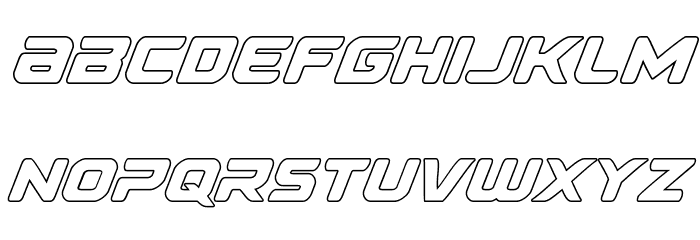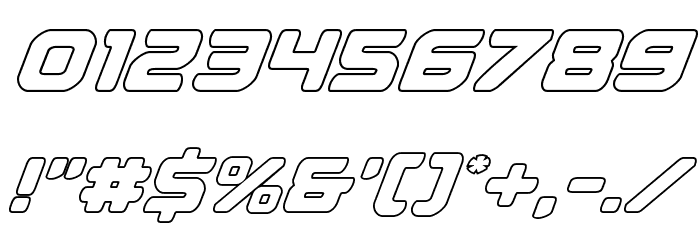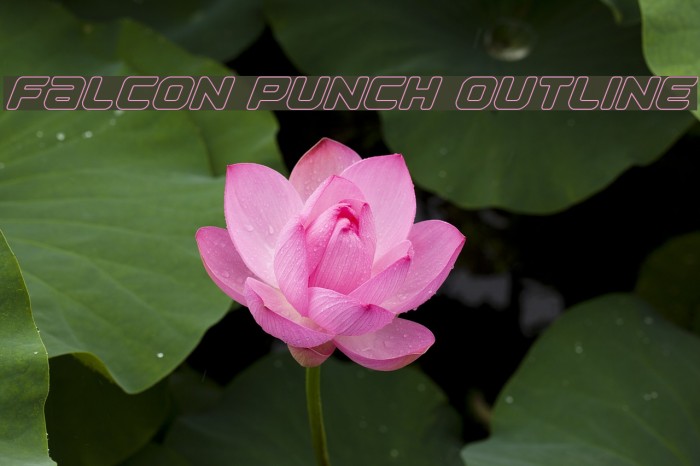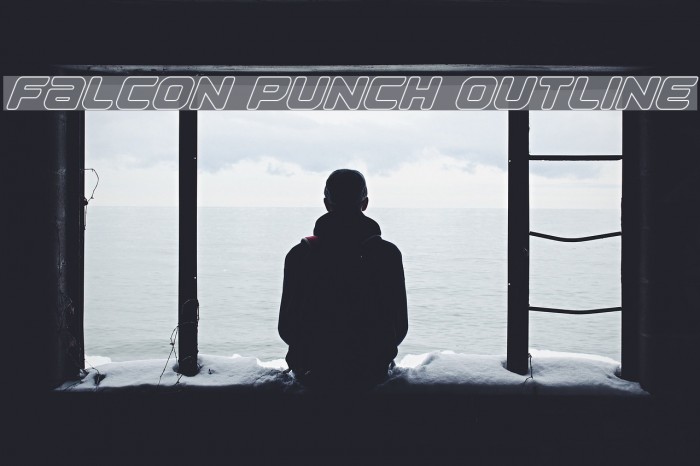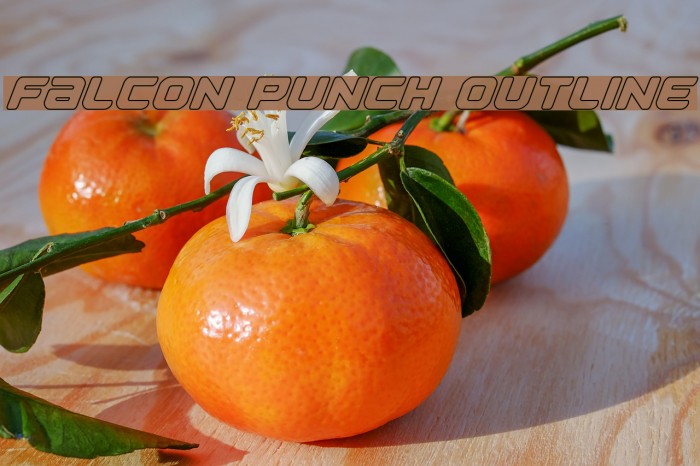
Falcon Punch Outline Font
This font features a bold, outlined style with a modern and futuristic aesthetic. The characters are uppercase and lowercase, with a consistent outline that gives them a three-dimensional appearance. The design is clean and geometric, with rounded edges that soften the overall look. The numbers and special characters maintain the same outlined style, ensuring uniformity across all glyphs. This font is highly legible and stands out due to its unique outline, making it suitable for attention-grabbing designs.
A bold, outlined font with a modern, futuristic look.
- Proposed Projects: Ideal for logos, posters, video game graphics, and any project requiring a modern, standout typeface.